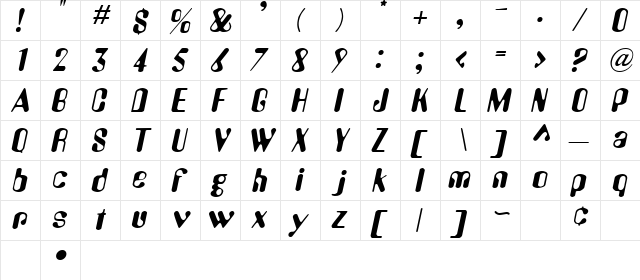
AlienEye Oblique
Design Context for AlienEye Typeface
AlienEye offers clean, dependable letterforms without strong stylistic allegiance, making it a practical choice for designers who need flexibility. Its italic angle brings a sense of urgency and motion to the letterforms.
Pro Tip: Try AlienEye for annotation and caption copy alongside an upright companion — the contrast in angle creates a dynamic but ordered typographic system.